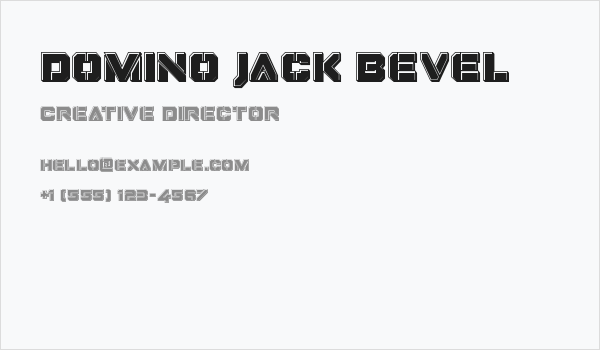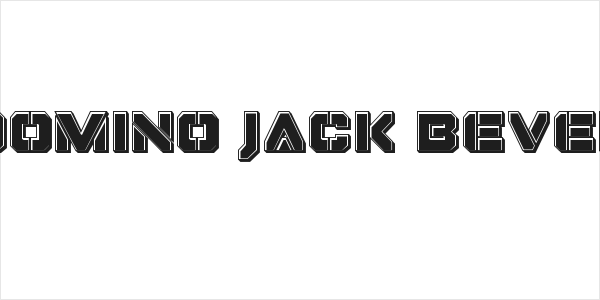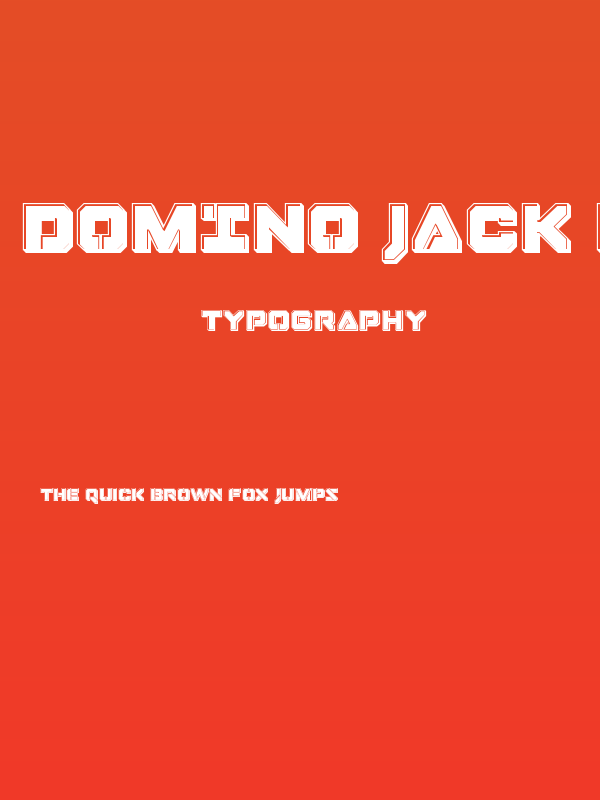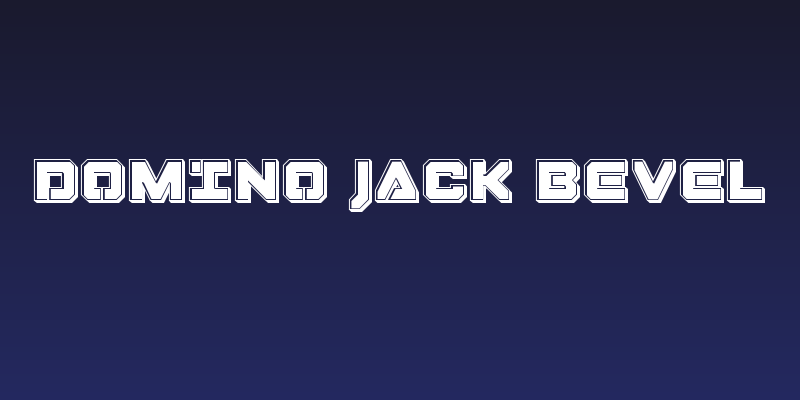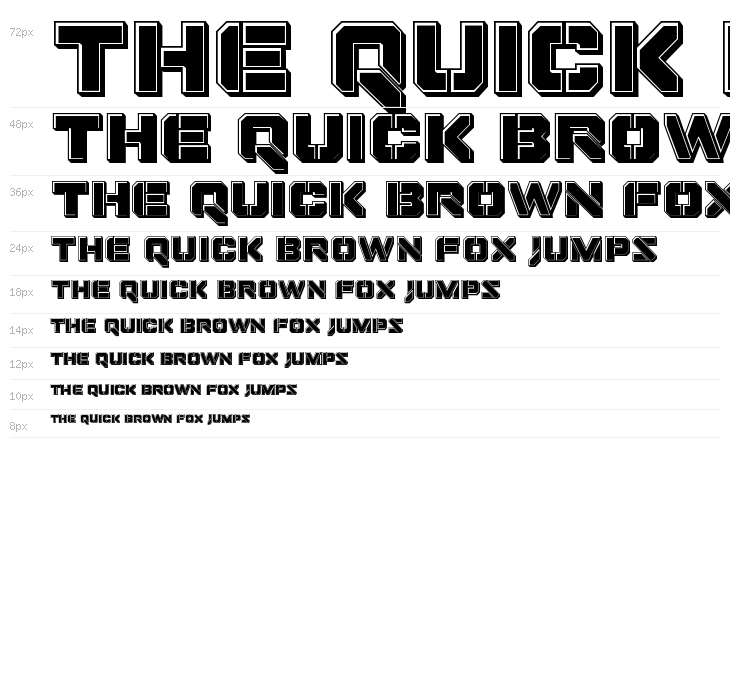
Domino Jack Bevel Font
Domino Jack Bevel Description
This font features a bold, geometric design with a three-dimensional effect, giving each character a beveled appearance. The uppercase letters are robust and angular, with sharp edges and a strong presence. The lowercase letters maintain the same boldness, ensuring consistency across the typeface. Numbers and special characters are designed with the same attention to detail, making them stand out with their unique, blocky style. The font's distinct look is achieved through its thick strokes and the illusion of depth, making it ideal for eye-catching designs.
| Proposed Projects | Ideal for posters, logos, video game graphics, and any project requiring a strong, impactful typeface. |